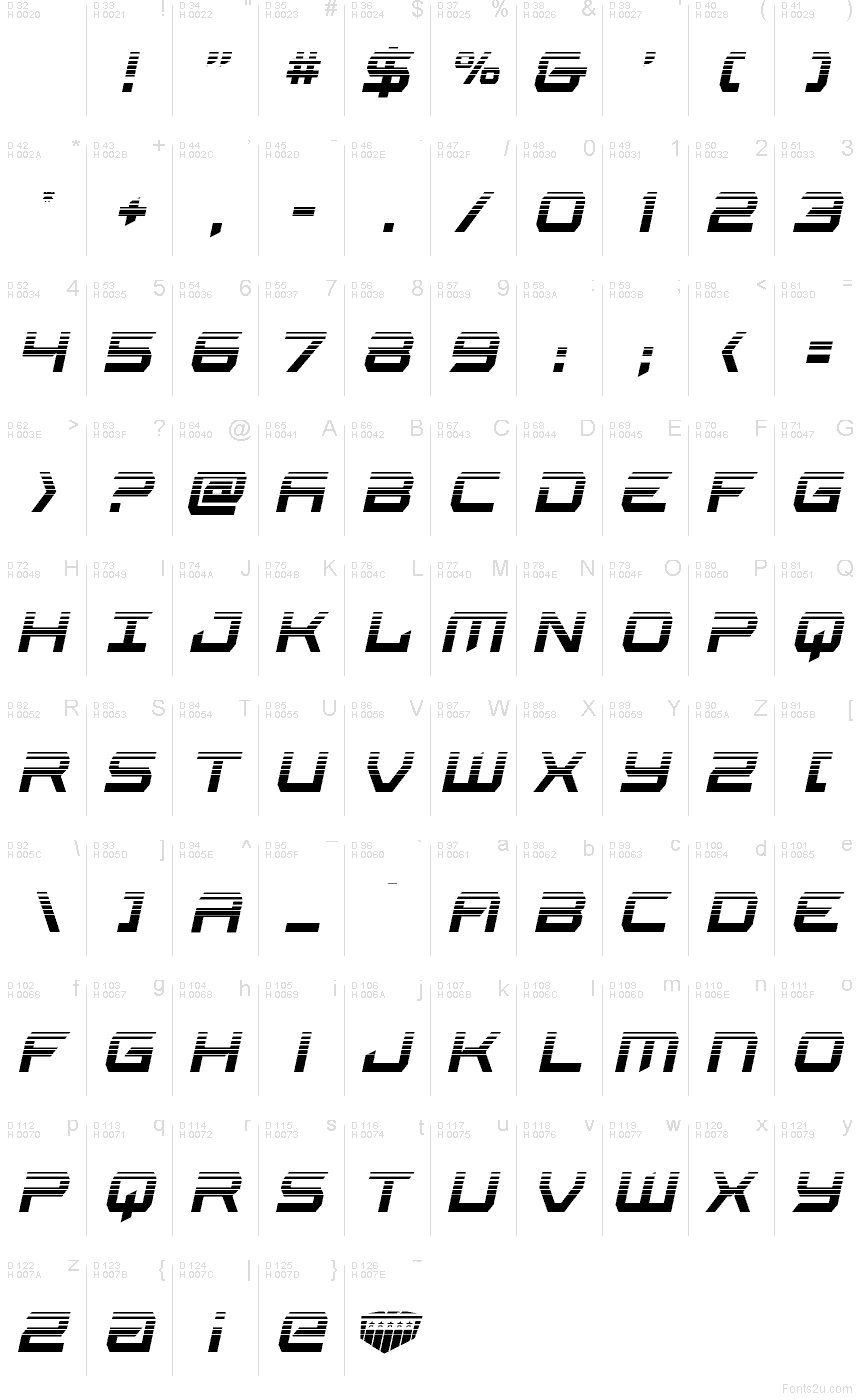
Jurist Dire Halftone Italic
Jurist Dire Halftone Italic font by Iconian Fonts is a free futuristic display typeface that looks like it’s been caught mid-warp. The italic slant, razor-straight cuts, and tight horizontal striping create a kinetic, scanline effect—like a logo frozen in the middle of a high-speed glitch. Letters feel sharp and metallic, with that halftone band slicing through each form to add depth without clutter.
Using Jurist Dire Halftone Italic, your titles instantly read as fast, digital, and slightly dangerous, so it shines on gaming covers, esports branding, sci‑fi posters, techno event flyers, and YouTube or Twitch overlays. This free font also works beautifully for bold wordmarks and futuristic UI mockups where you need maximum impact in a few characters. Pair it with a clean, neutral sans serif set smaller for body text so the striped motion effect stays loud and clear.